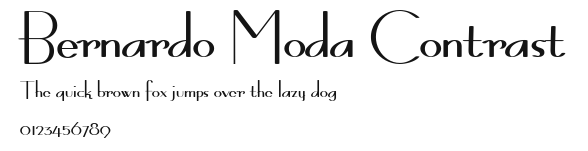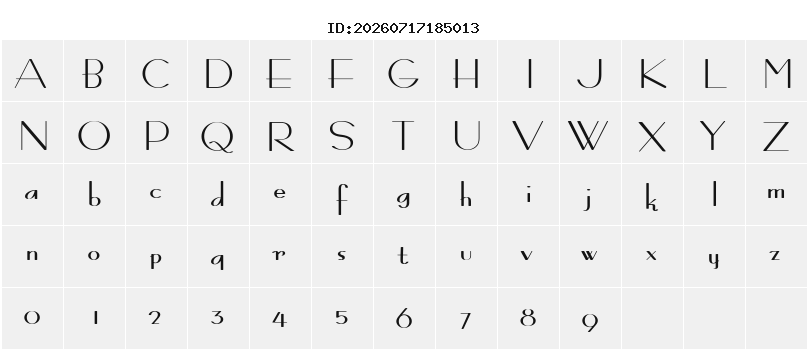
• Font Name: Bernardo Moda Contrast
About Bernardo Moda Contrast.ttf
Bernardo Moda Contrast.ttf is a modern, elegant sans-serif font designed for ultimate readability and visual harmony. Perfect for branding, headlines, web design, and print materials.